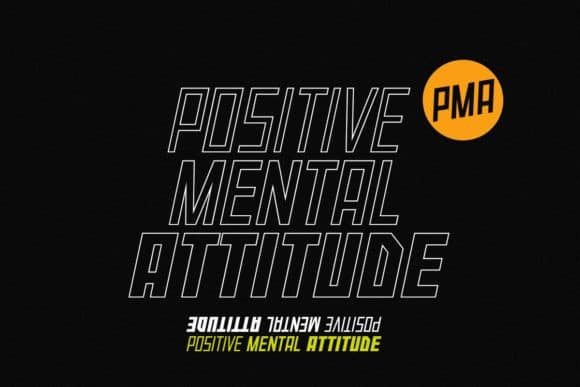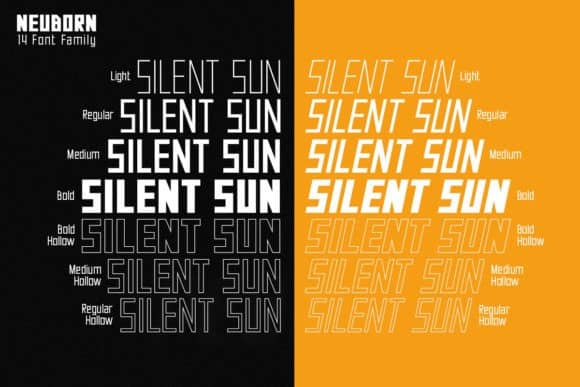
Neuborn Display Font
Introducing Neuborn Display Font. A bold and strong geometric typeface. Rectangular shape with rigid and sharp edges is the first impression that makes this font look powerful and hit. It’s designed and shared by HIRO.std. It can easily be matched to an incredibly large set of projects, so add it to your creative ideas and notice how it makes them stand out!